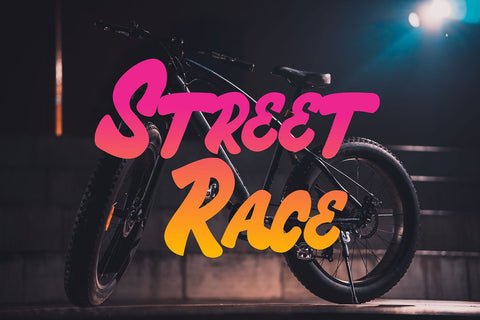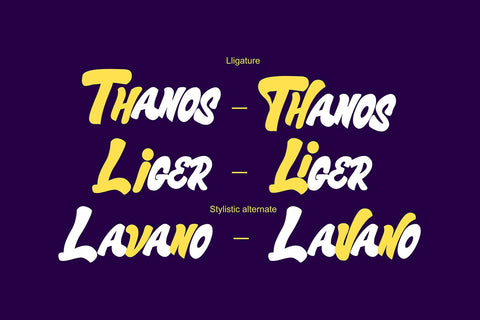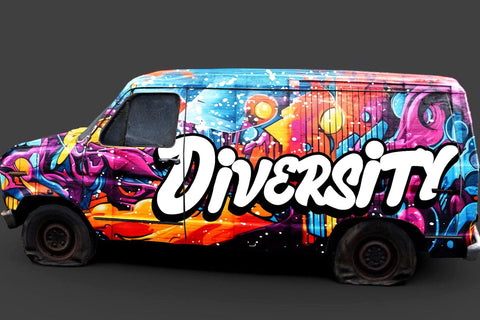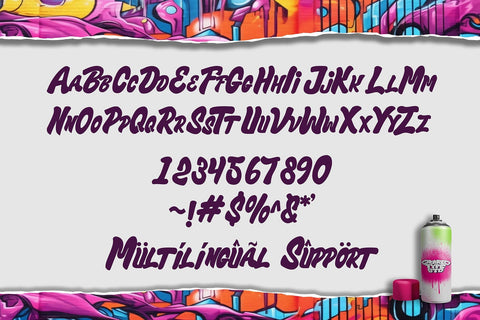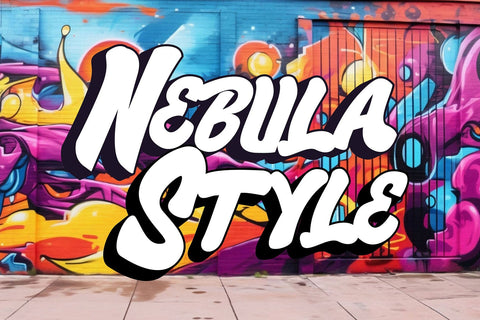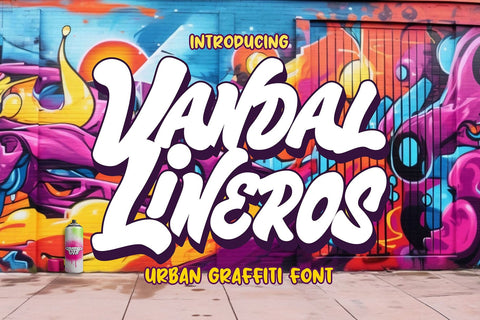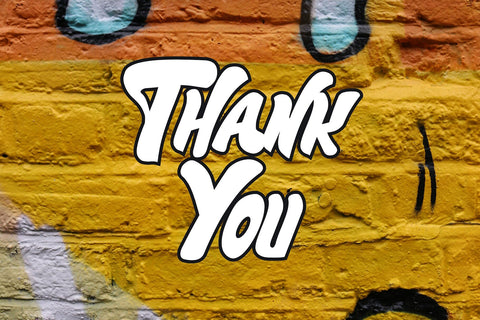
Vandal Lineros - Urban Graffiti Font
Vandal Linerous sounds like a cool graffiti typeface. Graffiti fonts often have a unique and artistic style that can add an edgy and urban feel to various design projects. If you have any specific questions or if there's anything specific you'd like to know or discuss about graffiti fonts or design, feel free to ask!
- Graffiti Characters looks